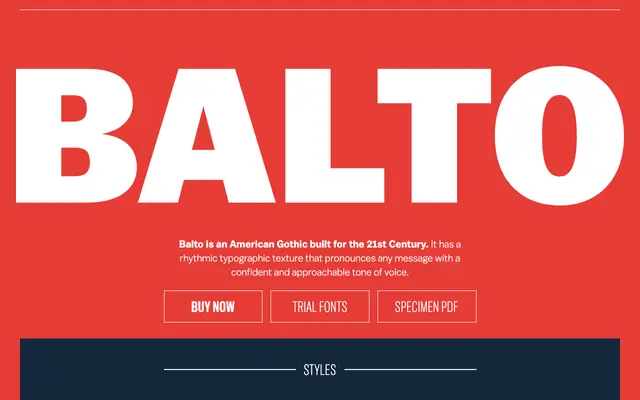
Balto specimen from Balto / Type Supply
An American Gothic sans with eight weights from Thin to Ultra, built for a confident and approachable tone across contemporary typographic work.
Positioned firmly in the American Gothic tradition, Balto runs from Thin to Ultra across eight weights, giving it considerable range for both text and display use. OpenType features include case-sensitive forms, tabular figures, fractions, subscript and superscript, making it practical for editorial and data-heavy contexts. Latin Extended language support covers a broad sweep of European and Pacific languages.
Described explicitly as an American Gothic, placing it within the grotesque sans-serif tradition that runs from Franklin Gothic through 20th-century American display type. The weight range and texture confirm a grotesque classification.